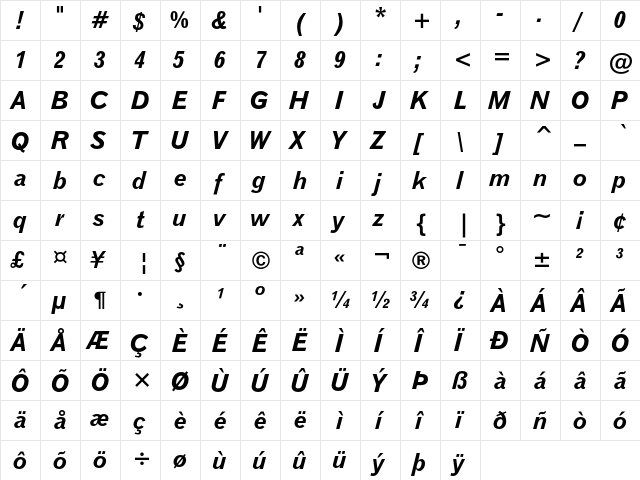
Gothic 720 Bold Italic
Design Context for Gothic 720 Typeface
Gothic 720 has the quiet confidence of well-executed sans-serif typography: versatile, unobtrusive, and dependable at any size. The slanted form adds forward momentum and visual energy. The heavy weight commands attention and anchors typographic hierarchies.
Well-suited to navigation labels, product packaging, and anywhere legibility at scale is essential.
Font Pairing: Use Gothic 720 for headlines alongside a lighter-weight sans or serif for body copy to establish clear visual hierarchy.
Pro Tip: Use Gothic 720 for UI labels, navigation, and short-form body copy where clean legibility is the priority.